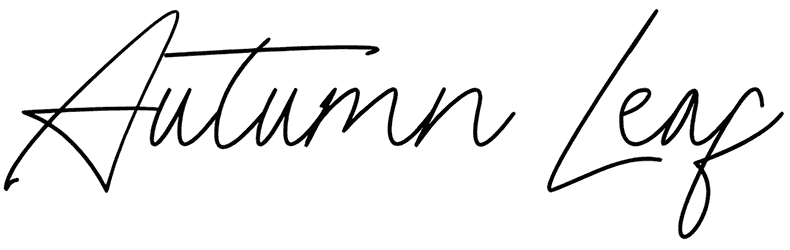
Autumn Leaf Font
A cursive handwritten font, such as the Autumn Leaf, can be one of the main requirements for designing remarkable graphic content. Aside from the lack of good readability, this script font looks insanely suitable for any kind of creative idea such as book covers, greeting cards, invitations, social media posts, and business cards.
If you want to convey a sense of personalization, delicacy, dynamism, or softness, then you should stop hesitating and pick it up as soon as possible.